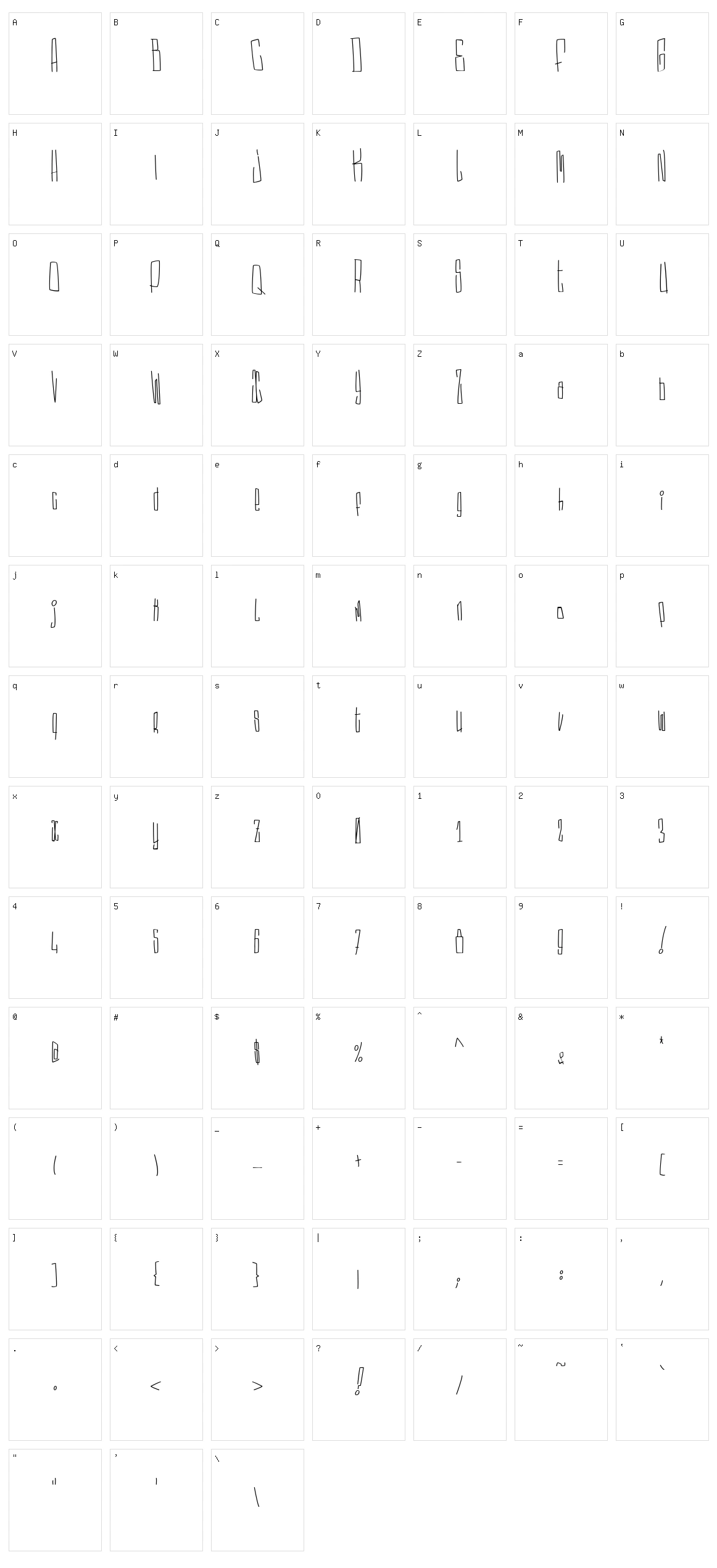
The free font Dream Builder is carefully designed by _n3o_, showcasing a thoughtful balance of creativity and usability and falls under the Script font style. When you download the ZIP file, it contains only 36.15 KB of font files, making it lightweight and quick to download. Please review the license details below to understand permitted usage and distribution rights. If license information is not available, we recommend using this font for personal projects only or contacting the author directly for commercial usage permissions.